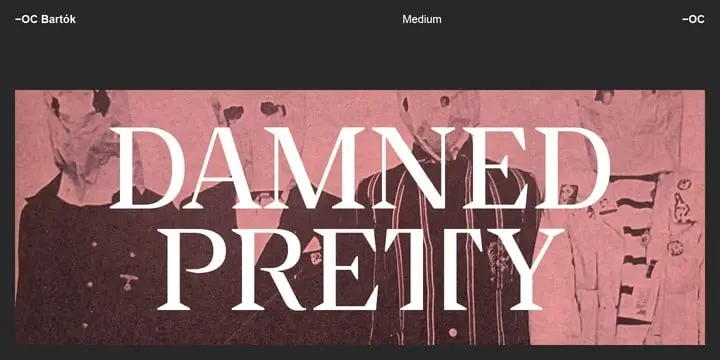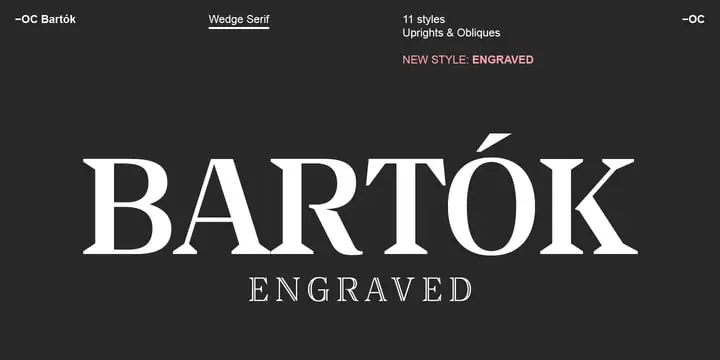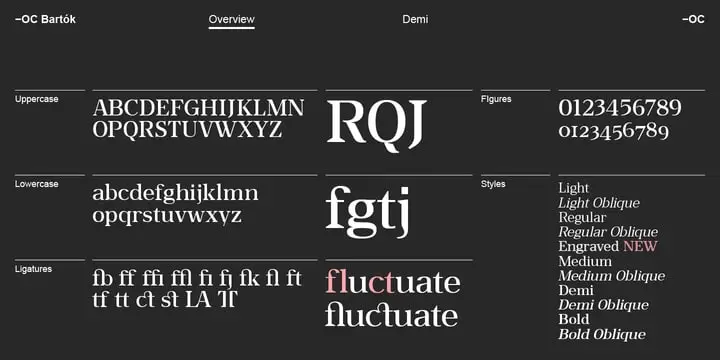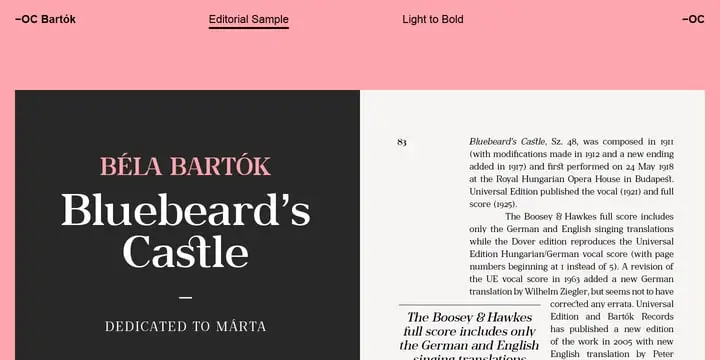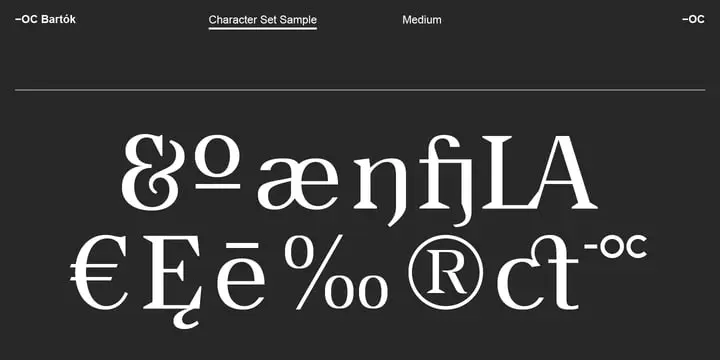
The Oc Bartok Font Family is a versatile typeface designed for a wide range of applications. With its extended Latin character set, this font family is perfect for both display and text use, ensuring clarity and style in every project.
- Multiple weights for flexibility in design
- Extended Latin support for diverse languages
- Clean and modern aesthetic suitable for various styles
- Weights: Light, Regular, Bold
- Ideal for branding, logos, and print materials
- Great for web design and user interfaces
- Use different weights to create visual hierarchy in your projects